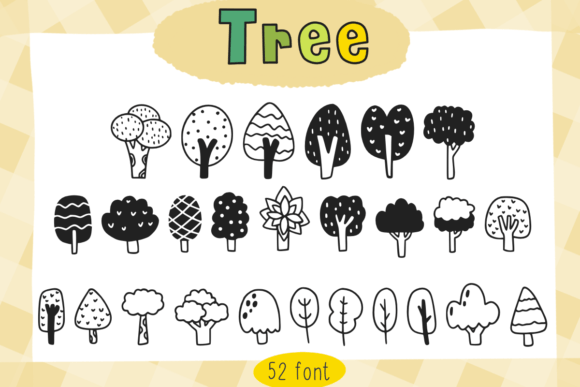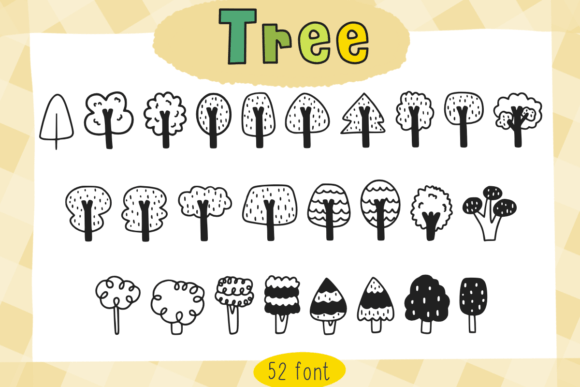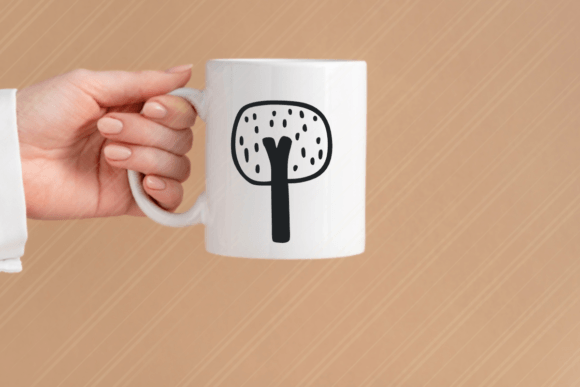
Tree Font
About Tree Font
Introducing Tree Font, a charming and versatile dingbats font that will add a touch of nature-inspired beauty to your creative projects. This hand-drawn font features a delightful collection of tree-related illustrations, making it perfect for a wide range of applications.
Tree Font is not only cute but also highly useful. Its hand-drawn style captures the organic and whimsical essence of trees, making it an ideal choice for various creative endeavors. Whether you’re designing planners, crafting, creating digital designs, making presentations, or crafting greeting cards, Tree Font will enhance your projects with its unique charm.
With Tree Font, you have a plethora of tree-related symbols at your disposal. From intricate tree silhouettes to branches, leaves, and even tree-themed ornaments, this font provides you with a versatile set of elements to incorporate into your designs. Use them as decorative embellishments, dividers, or even as stand-alone elements to create eye-catching visuals.
Adding Tree Font to your creative ideas will instantly elevate your designs. Whether you’re working on a nature-themed project, creating a woodland-inspired greeting card, or designing a planner with an earthy touch, this font will help you achieve outstanding results. Its hand-drawn style adds a personal and whimsical feel to your creations, making them stand out from the crowd.
Let Tree Font be your creative companion as you embark on new design ventures. Explore the endless possibilities and let your imagination bloom with the adorable tree illustrations at your fingertips. Whether you’re a planner enthusiast, a craft lover, or a digital designer, Tree Font will add a delightful touch to your creative journey.
Embrace the cuteness and versatility of Tree Font and watch as it brings your designs to life. Let the beauty of nature inspire your creativity, and create remarkable projects with this charming dingbats font.